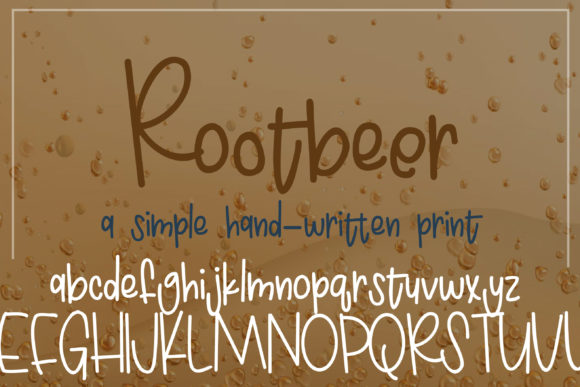
Introducing PN Rootbeer Font - The Quintessential Script Font for Unforgettable Designs!
Step into the realm of captivating typography with PN Rootbeer Font, a remarkable script font that breathes life into your creative endeavors. Its enchanting hand-crafted strokes, reminiscent of a casual handwritten note, exude a playful and lighthearted charm that is sure to leave a lasting impression.
PN Rootbeer Font is the embodiment of versatility, effortlessly transcending the boundaries of print and screen. Its enlarged uppercase letters add a touch of whimsy and uniqueness to your designs, making them stand out from the mundane. Unleash your creativity and let PN Rootbeer Font transform your projects into visually stunning masterpieces.
With PN Rootbeer Font, you can effortlessly elevate your designs to new heights. Its playful and vibrant nature is a perfect match for creating logos, posters, invitations, and social media graphics that capture the attention of your audience. It's the ideal choice for adding a personal and charming touch to your branding and marketing materials.
This exceptional font also excels in the realm of digital design. Its crisp and legible appearance ensures that your messages shine brightly across screens of all sizes. Craft eye-catching website headers, social media posts, and digital ads that captivate your audience and leave them craving more.
Imagine the possibilities as you weave your words into stunning works of art using PN Rootbeer Font. Its enchanting curves and playful strokes will add a touch of magic to your designs, making them irresistible to your audience. Experience the joy of creating designs that resonate with your brand's personality and leave a lasting impression on your customers.